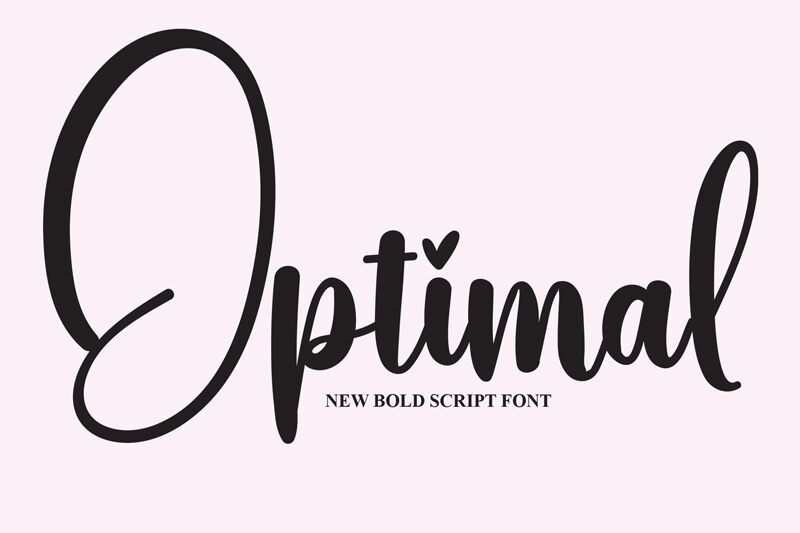
Optimal
Optimal, a calligraphy masterpiece by Scratchones, exudes a semi-light elegance that speaks to the connoisseur of fine typography. Crafted with a delicate yet confident hand, Optimal marries timeless artistry with contemporary flair. Its sweeping curves and gentle flourishes evoke the bespoke charm of hand-lettered design, making it an exceptional choice for invitations, branding, and personalized stationery.
The aesthetic appeal of Optimal lies in its harmonious balance between classic calligraphic traditions and modern minimalism. Each character is designed to flow seamlessly into the next, creating an uninterrupted visual rhythm that is both pleasing to the eye and easy to read.
Suited for a variety of creative projects that demand an air of sophistication and subtlety, Optimal can transform words into an enchanting visual narrative. Whether used for editorial headers, elegant logos or intimate messages, this font's versatility allows designers to craft compelling compositions with a touch of finesse.
The aesthetic appeal of Optimal lies in its harmonious balance between classic calligraphic traditions and modern minimalism. Each character is designed to flow seamlessly into the next, creating an uninterrupted visual rhythm that is both pleasing to the eye and easy to read.
Suited for a variety of creative projects that demand an air of sophistication and subtlety, Optimal can transform words into an enchanting visual narrative. Whether used for editorial headers, elegant logos or intimate messages, this font's versatility allows designers to craft compelling compositions with a touch of finesse.